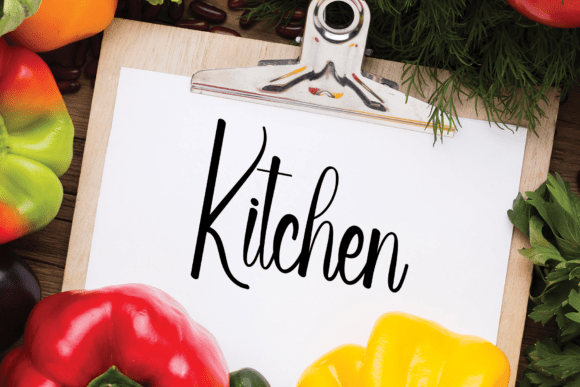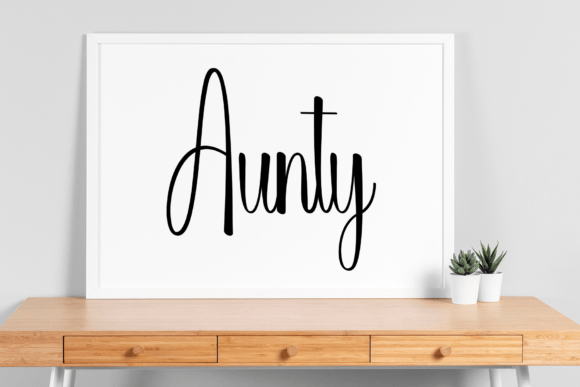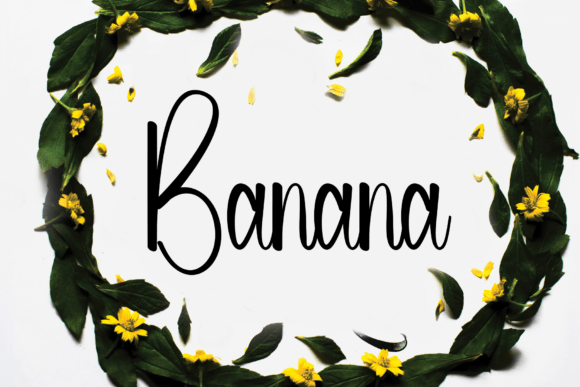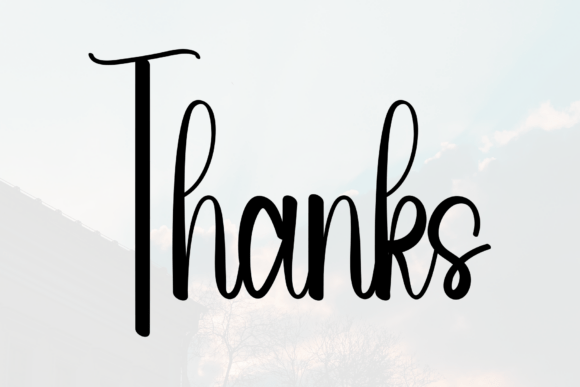
The Elegance Font: A Sweet and Beautiful Handwritten Delight
I’ll never forget the time I was working on a design project for a cozy bed and breakfast, and I just couldn’t find the right font to capture the warm and inviting atmosphere I was going for. The client wanted something that felt like a handwritten welcome letter, but I was coming up blank. That’s when I stumbled upon the Elegance font, and it was like a lightbulb went off! ✨
A Personal Review of Elegance Font
I’ve had the pleasure of working with Elegance font on several projects, and here’s what I have to say:
- ✨ The way the characters dance along the baseline, giving it a playful and whimsical feel
- ✅ The font’s versatility – it works beautifully for both digital and print projects
- ✅ The range of OpenType features, including glyphs and stylistic alternates, which allow for endless customization
- ✅ The overall elegance and sophistication it brings to any design
While Elegance font is a stunning addition to any design project, there are a few things to keep in mind:
- ⚠️ Some of the more intricate glyphs and swashes can get a bit lost at smaller font sizes
- 🤔 The font can be a bit overused, so be mindful of how often you use it in a single design
The Backstory of Elegance Font
Elegance font was designed with the intention of capturing the warmth and coziness of handwritten letters. The designer, inspired by traditional calligraphy and the flowing movements of handwritten scripts, aimed to create a font that would bring a touch of elegance to any design project. 💫
| Font Name | Elegance Font |
| Author | ArtLine Design |
Q: Is Elegance font suitable for body text?
A: While Elegance font is beautiful, it’s best suited for headlines, titles, and short paragraphs. For longer body text, a more traditional serif or sans-serif font might be more readable.